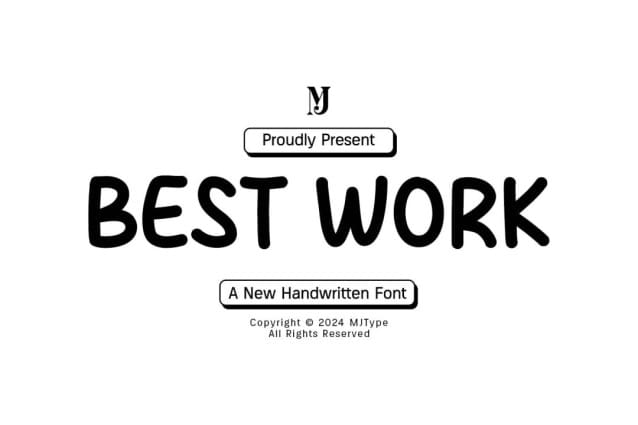
Best Work Font
Best Work Font a sweet and friendly handwritten font. Cute and fun, this font is ideal for writing wedding invitations, cards, or any other design that might need a fun touch!